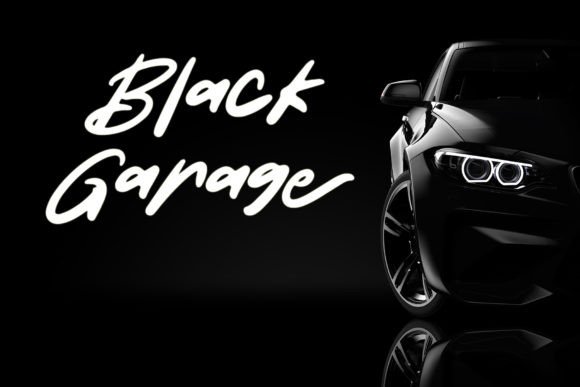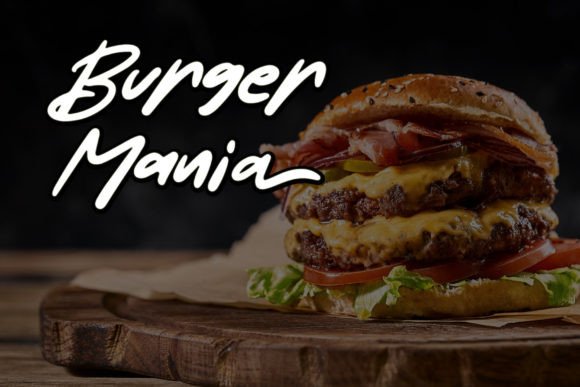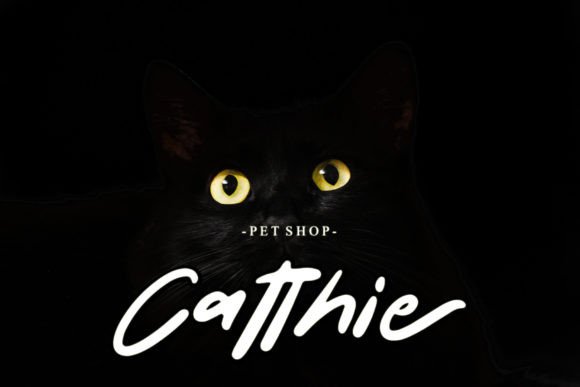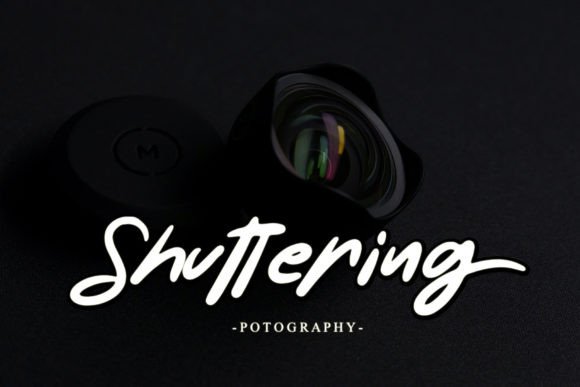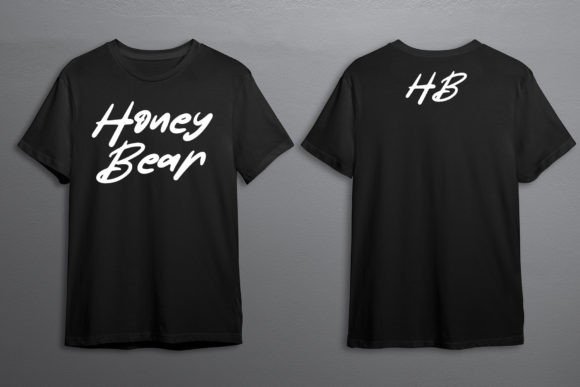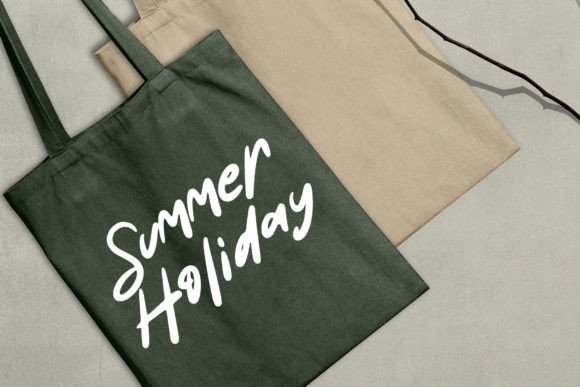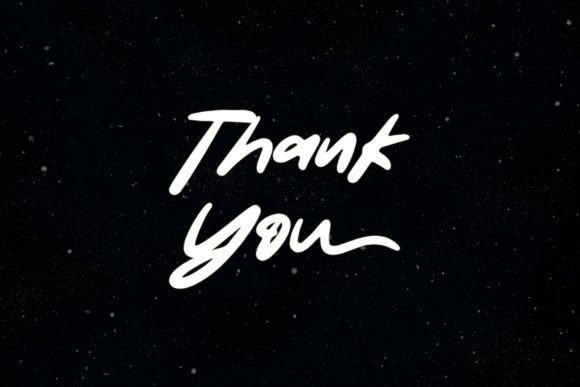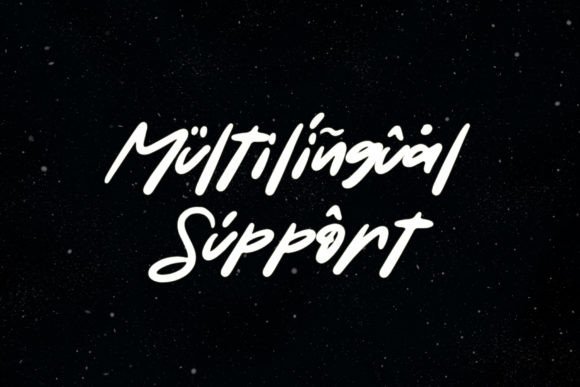
Something Shine Font
Something Shine is a bold yet casually handwritten font that carries a strong brush touch, ready to bring vibrancy to every design you create. Its boldness and versatility make it perfect for a range of applications, including logos, quotes, posters, clothing, and more. Incorporate Something Shine into your creative projects, and witness the remarkable outcomes it generates!
The strong brush touch of Something Shine adds a dynamic and energetic quality to your designs, making it particularly effective for projects where you want to make a bold statement. Whether you’re crafting a powerful logo or creating eye-catching posters, Something Shine stands out as a font that adds a touch of flair.
Imagine Something Shine enhancing your designs, whether it’s on impactful logos, inspiring quotes, or any project that demands a bold and casual handwritten style. The font becomes a key element that not only adds a dynamic aesthetic but also infuses a sense of creativity into your creations.
In summary, Something Shine is more than just a font; it’s a design asset that brings boldness and casual flair to your projects. Embrace its versatility confidently, and let Something Shine be the typeface that adds a bold and dynamic touch to your creative endeavors.